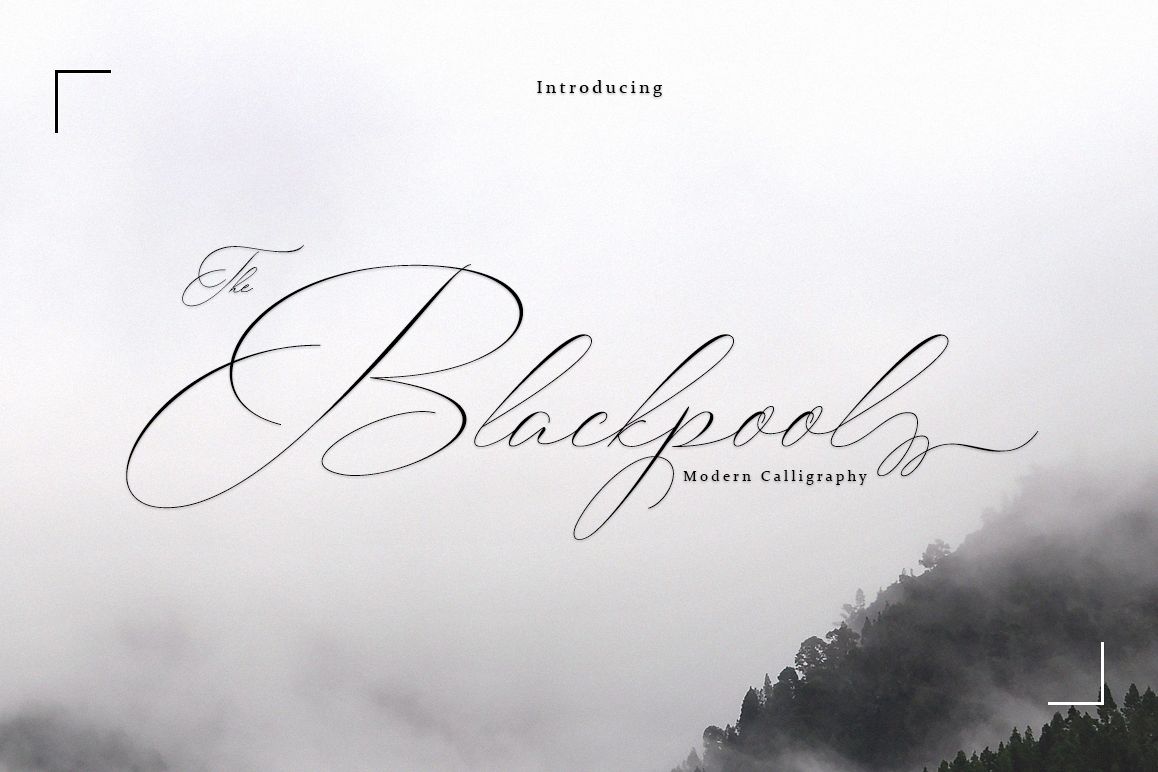
The - Blackpool
NEW FRESH ! Blackpool Script. It's an modern
typeface. Blackpool Script, including swashes, ligatures,Alternate and
International support for most Western Languages is included. Blackpool
come with 540 glyphs